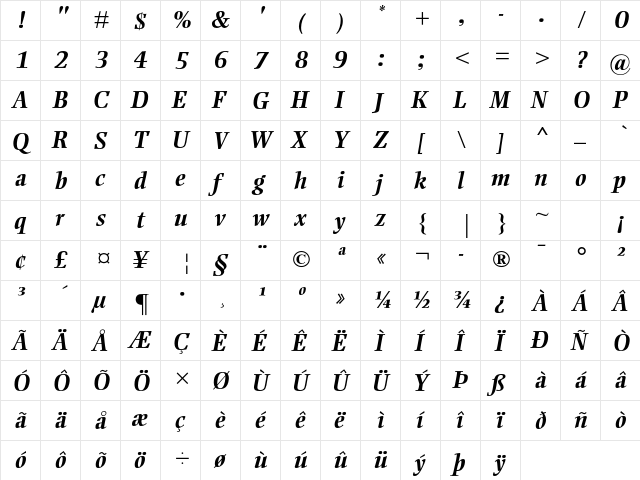
Ellington MT Std Bold Italic Font Preview
Ellington MT Std Bold Italic
Ellington MT Std Bold Italic Font Details
| Designer | Michael Harvey |
Design Context for Ellington MT Std Typeface
Ellington MT Std is a composed and adaptable typeface that performs quietly and consistently across a wide range of design contexts. The slanted form adds forward momentum and visual energy. Its bold stroke weight gives it real presence on the page.
Pro Tip: Try Ellington MT Std for annotation and caption copy alongside an upright companion — the contrast in angle creates a dynamic but ordered typographic system.